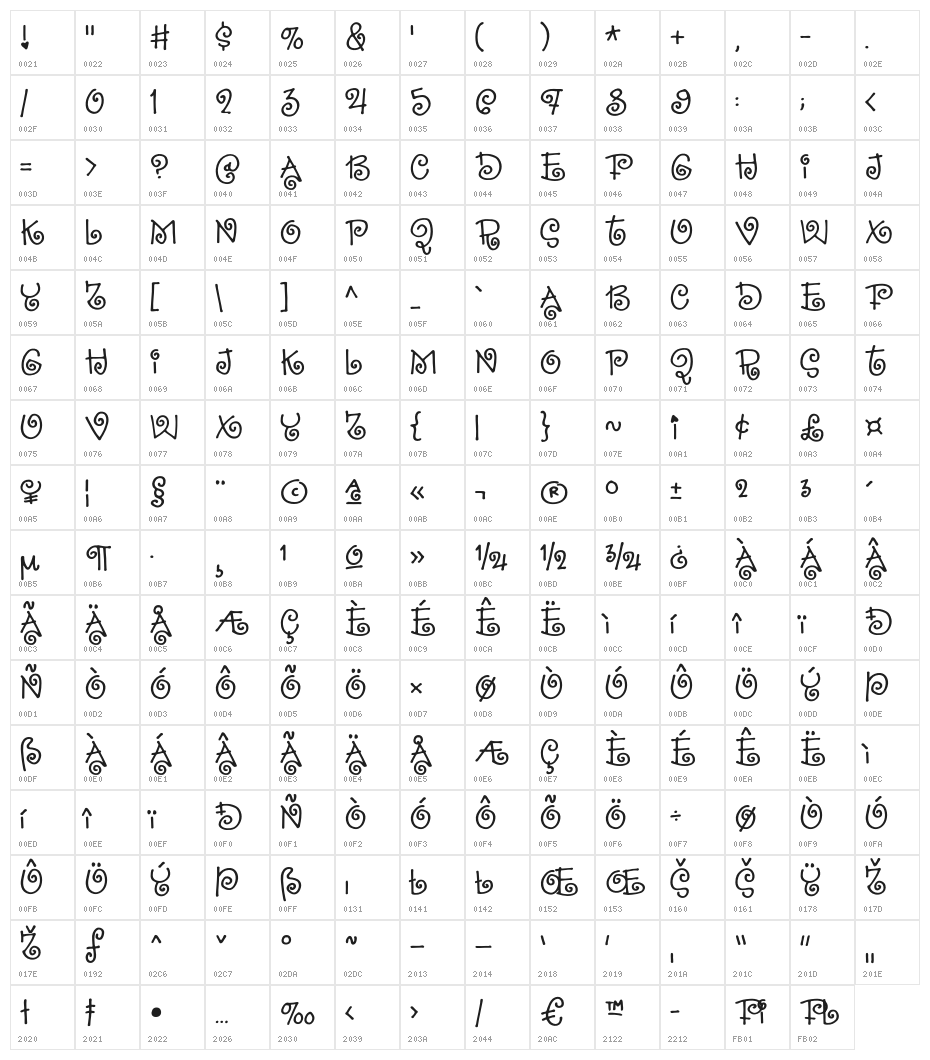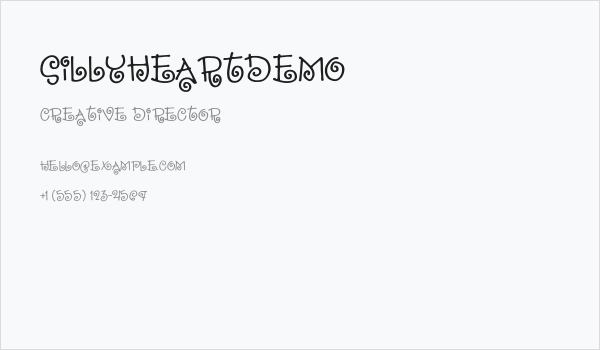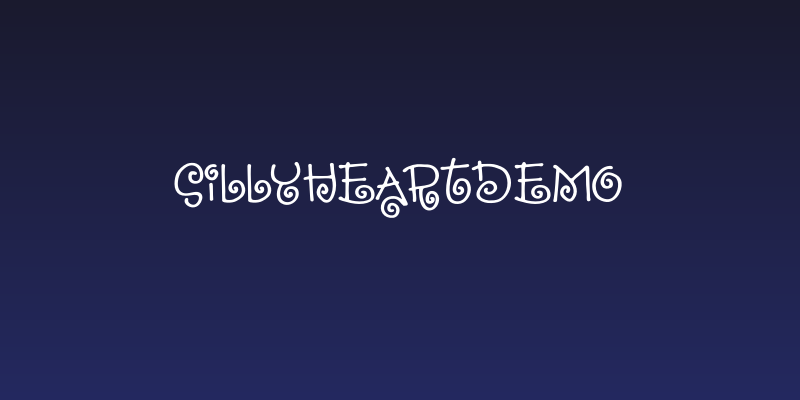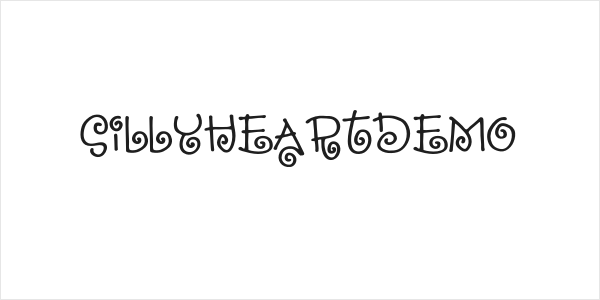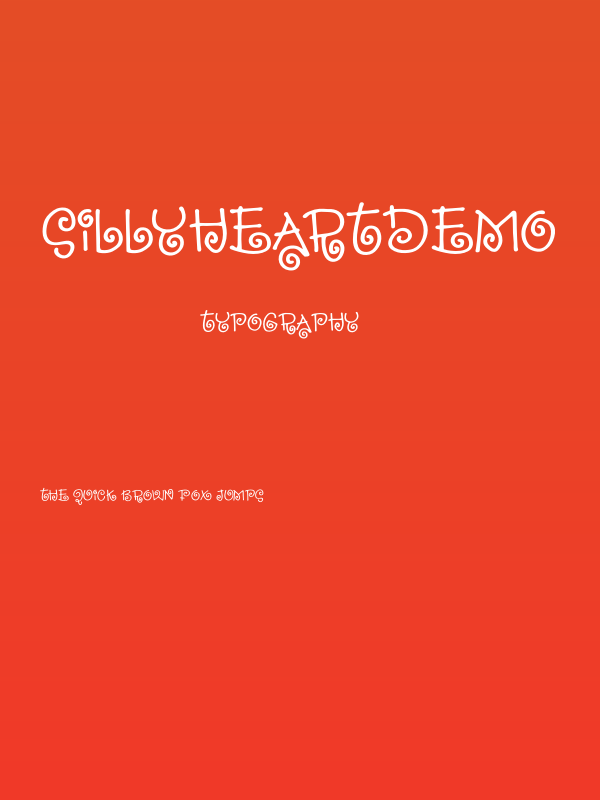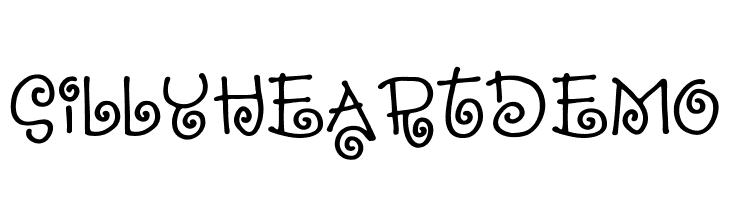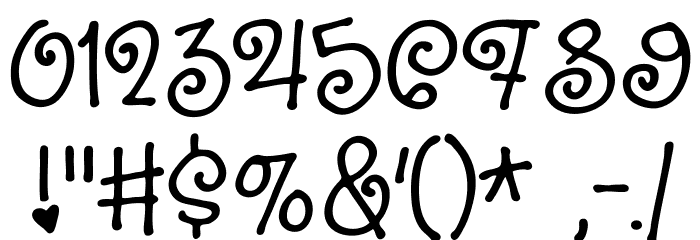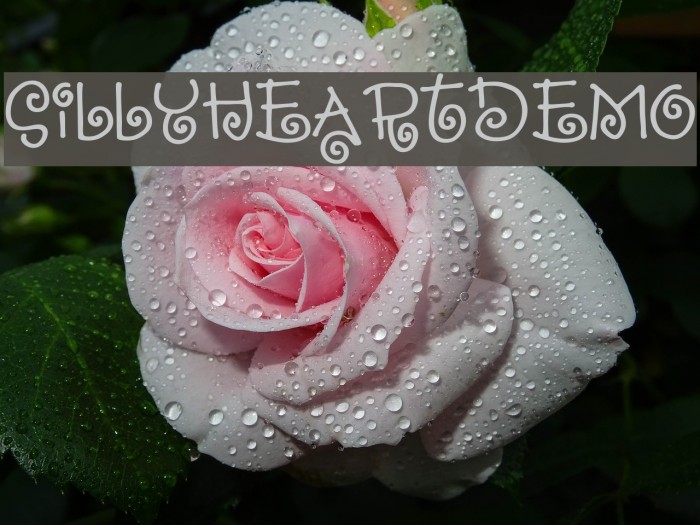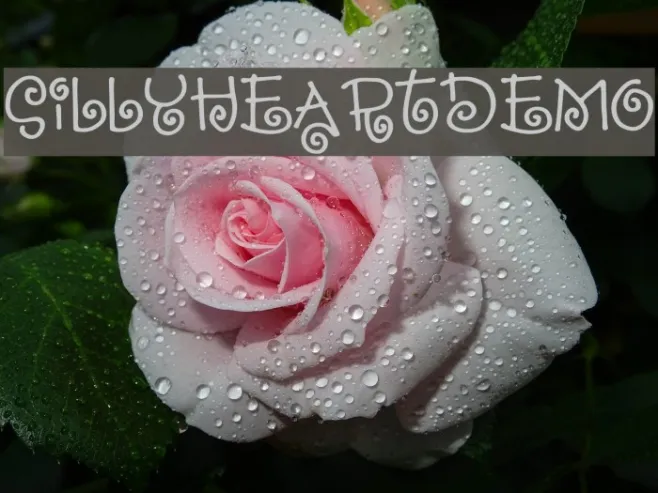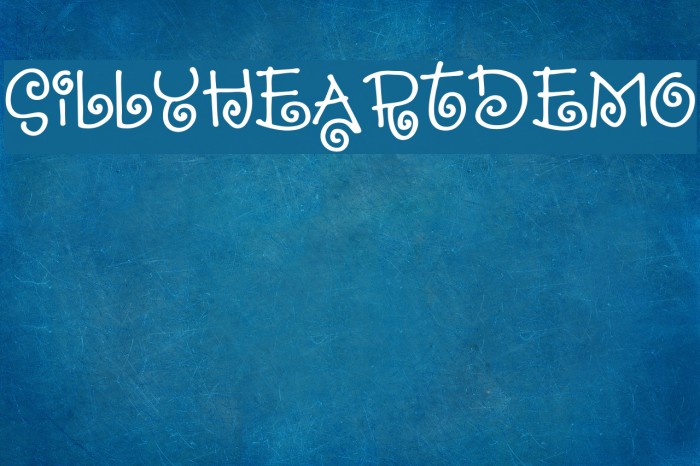
SillyheartDEMO Font
SillyheartDEMO Description
This playful and whimsical font features a unique, curly design that adds a sense of fun and creativity to any project. The characters are bold and rounded, with distinctive swirls and loops that give it a lively and energetic appearance. The font maintains a consistent thickness throughout, providing a uniform look while still allowing each character to stand out with its own personality. The numbers and special characters follow the same playful style, making it suitable for a variety of creative applications. Its decorative nature makes it ideal for projects that require a touch of whimsy and charm.